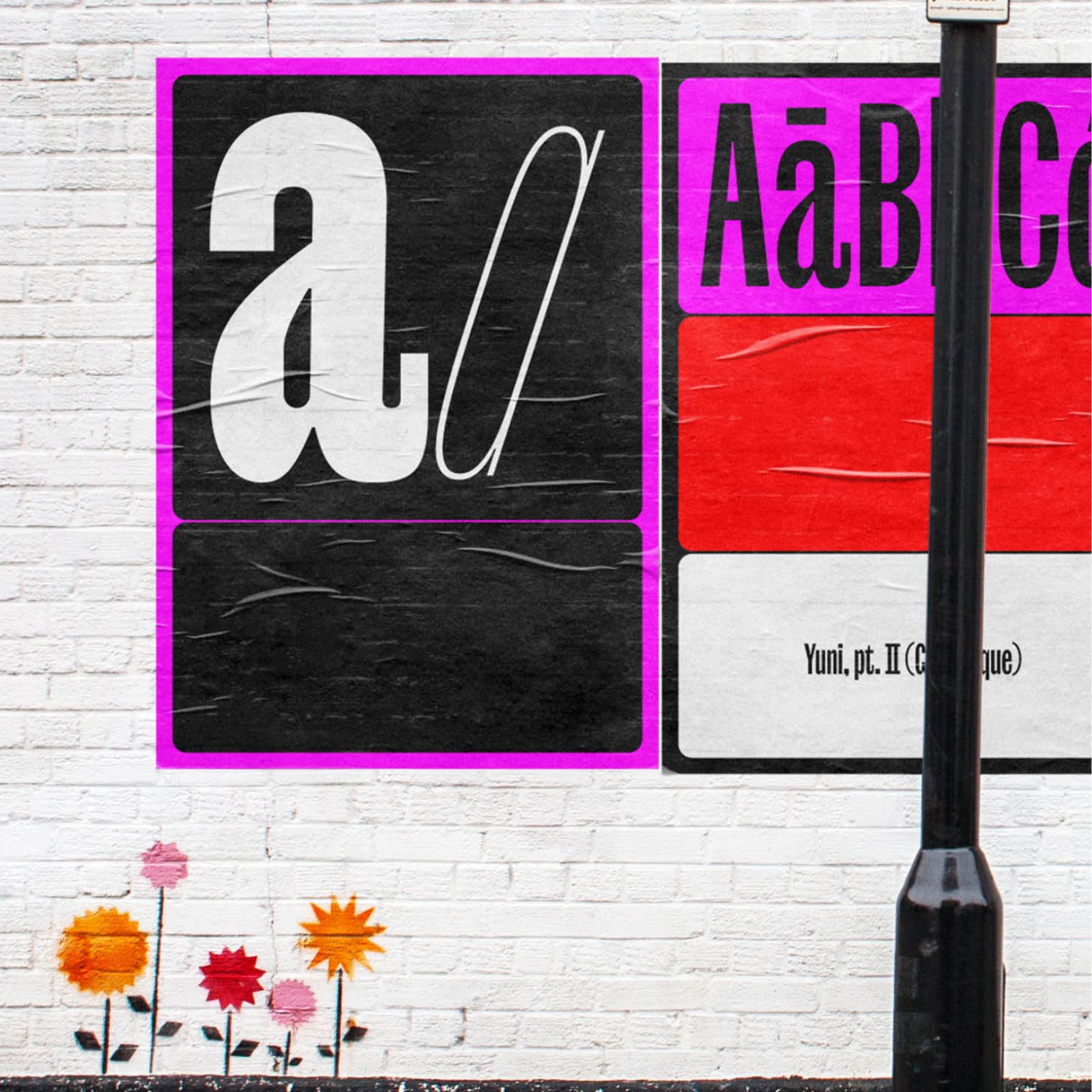
Yuni Grotesque Font: A Playful Powerhouse of Compressed Sans Design
Discover Yuni Grotesque Font by Philipp Neumeyer and TypeMates — a compressed sans with playful curves, 12 styles, 900+ glyphs, and support for 270+ languages. Oh my!
It’s Friday, and we’ve got some fresh font news to kick off the weekend: Yuni Grotesque has arrived. When type design becomes storytelling, it’s worth paying attention. Enter Yuni Grotesque, the newest chapter in the much-anticipated Yuni Collection. Designed by Philipp Neumeyer and released through TypeMates, Grotesque strikes out on its own with curves that are equal parts functional and mischievous.
A Distinct Voice
At first glance, Yuni Grotesque might read as a compressed sans, but it’s much more. Its counters shift toward near-perfect circles as weight increases, while outer curves flatten out in unexpected ways. The result is a kind of high-functioning foolishness, a characterful sans that’s self-aware yet confident in any setting.
Six Weights, Twelve Styles
Grotesque arrives in a finely curated range: from a whisper-thin Hair to a bold, commanding Black. Add in Italics slanted at an expressive 18° and you get a versatile set of 12 styles ready for everything from oversized movie titles to branding systems that demand impact. This is typography meant to be seen and remembered.
Typographic Depth
Behind the playful curves lies serious depth. Each style contains more than 900 glyphs, covering over 270 languages with Latin and Cyrillic support. Designers will appreciate the thoughtful extras: multiple figure sets (yes, circled ones too), arrows, case-sensitive punctuation, contextual alternates, and even stylistic highlights that keep dynamic typesetting fresh.
A Collection in Motion
Yuni Grotesque isn’t the end of the story, but a milestone in the evolving Yuni Collection. Its confident stance signals where the collection is headed toward a full family of expressive typefaces designed for today’s global, multi-platform design work. For those of us always on the hunt for fonts that balance functionality and personality, Yuni Grotesque offers both in spades.